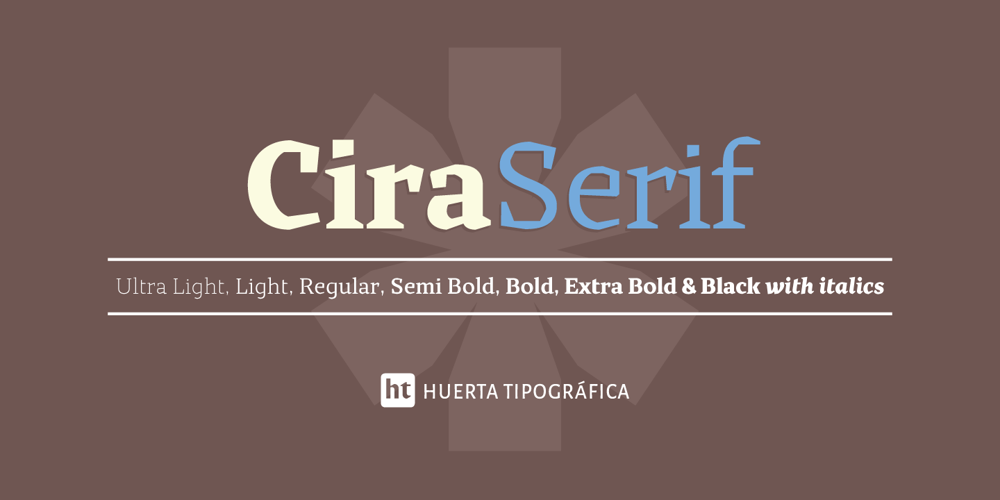
Cira Serif Font Family was designed by Andrés Torresi and published by Huerta Tipográfica. Cira Serif contains 14 styles and family package options. Cira is a superfamily with 7 weights and italics under two main styles: sans and serif. The original concept was created for Katachi Media as a corporate font for text and experimentation in an iPad magazine. It has a diversity of outlines with straight angles which create unusual shapes and counterforms. Its middle weights are suitable for text and can be combined with extreme weights at display sizes. Cira is a versatile superfamily with an original and modern feeling and it’s a great option for giving identity to your designs.